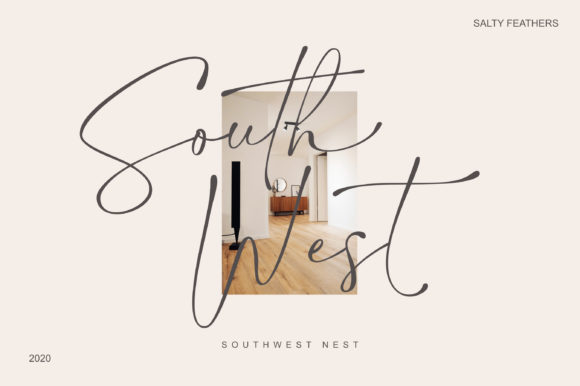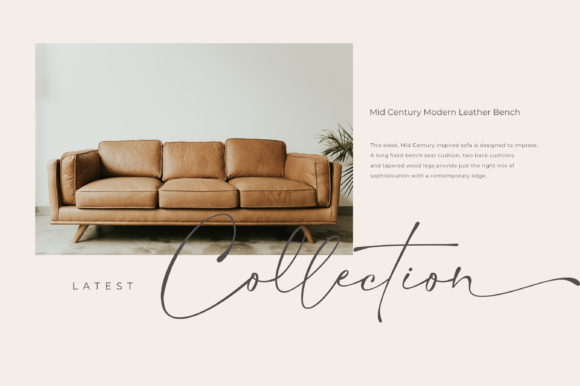
Salty Feathers Font
db-ku.com - Script & Handwritten -- Salty Feathers is a delicate and elegant handwritten font. Its distinct and well rounded letters make this font a masterpiece. This font is PUA encoded which means you can access all of the glyphs and swashes with ease!